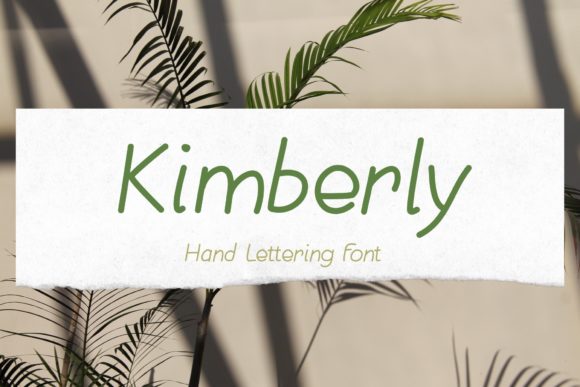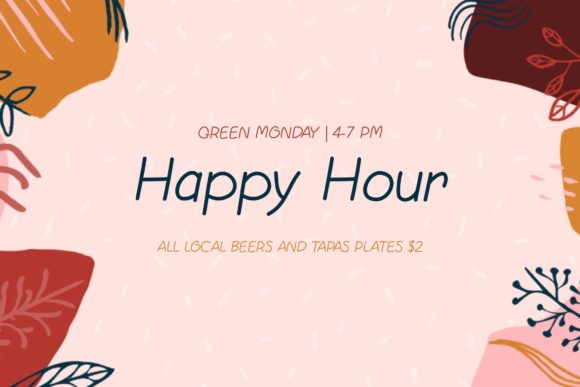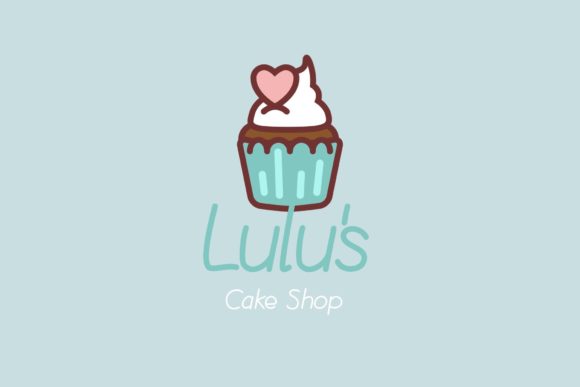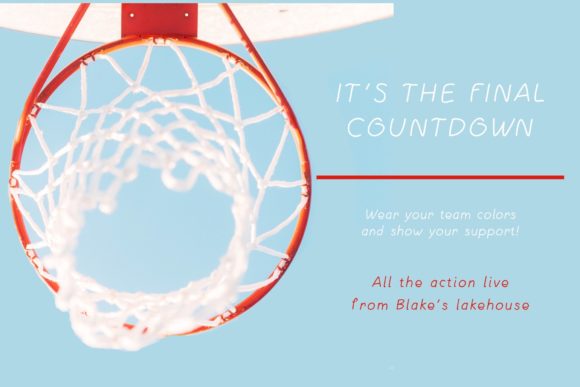
Kimberly Font
About Kimberly Font
Kimberly is a cute and clean looking handwritten font. This original look will appeal to a wide range of crafty ideas, from letterheads and titles, to stationery.